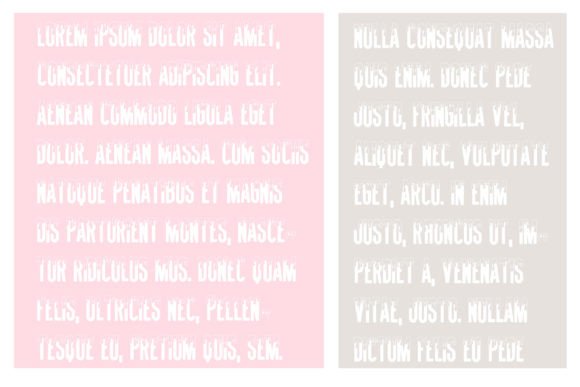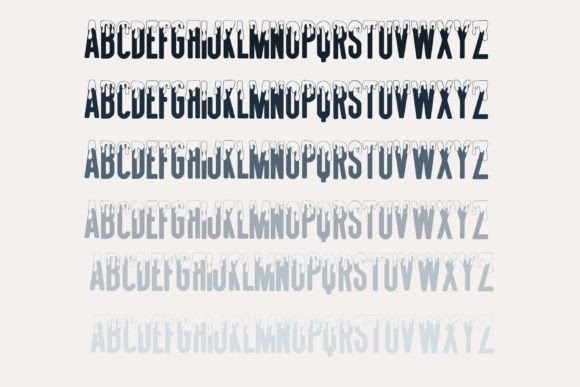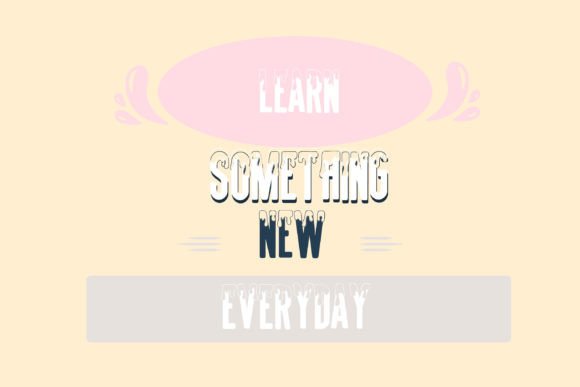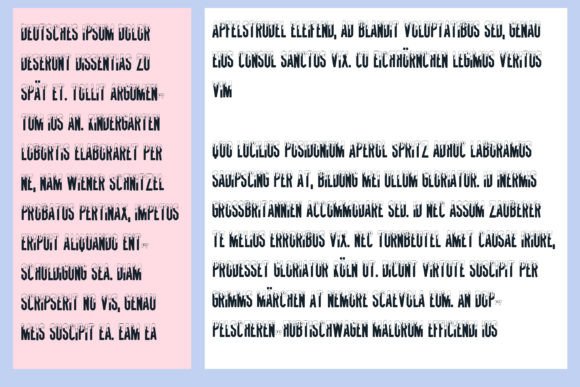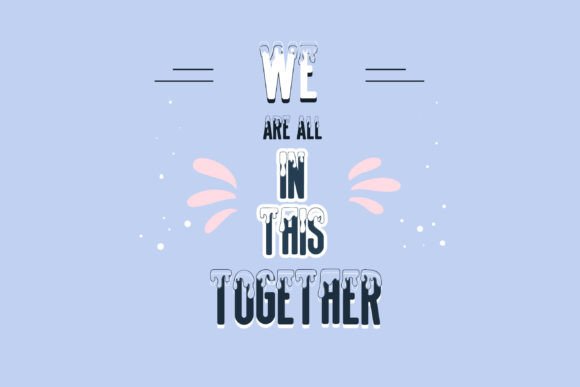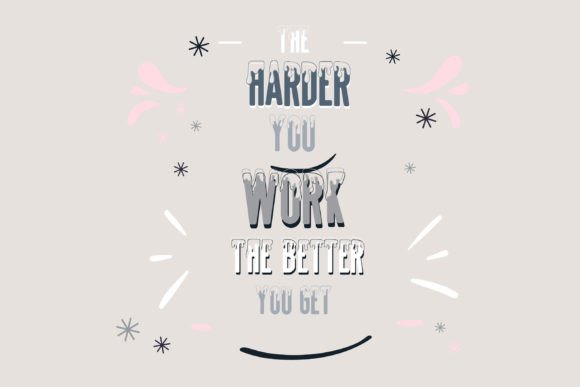
Introducing Art Party Font: The Playful and Creative Sans-Serif Font
Are you a designer, crafter, or artist looking for a font that embodies creativity and fun? Look no further than Art Party Font, a playful sans-serif font that is sure to add a splash of personality to your artistic projects or events. In this article, we’ll dive into the details of Art Party Font, its features, and how you can use it to elevate your designs.
What is Art Party Font?
Art Party Font is a unique and eye-catching sans-serif font that features paint dripping from the tops of the letters. This distinctive design element gives the font a creative and fun vibe, making it perfect for any artistic project or event. Whether you’re designing an invitation for an art class, creating a logo for a painting business, or crafting a label for a goo-related item, Art Party Font is the ideal choice.
Key Features of Art Party Font
- Playful and Creative Design: Art Party Font features a playful and creative design that is sure to grab attention. The paint dripping from the tops of the letters adds a fun and artistic touch to any design.
- Sans-Serif Font: Art Party Font is a sans-serif font, which means it doesn’t have serifs or small lines at the ends of the letters. This makes it a clean and modern font that is easy to read.
- Versatile: Art Party Font is a versatile font that can be used for a wide range of artistic projects or events, including art classes, painting, frosting, goo-related items, and more.
How to Use Art Party Font
Art Party Font is easy to use and can be incorporated into a variety of designs. Here are a few ideas to get you started:
- Art Class Invitations: Use Art Party Font to create eye-catching invitations for art classes, workshops, or events.
- Painting Business Logos: Create a logo for your painting business using Art Party Font and add a touch of creativity and fun to your brand.
- Crafting Labels: Use Art Party Font to create labels for your crafting projects, such as frosting, goo-related items, or other artistic creations.
- Social Media Graphics: Use Art Party Font to create social media graphics that showcase your artistic side and add a touch of personality to your online presence.
Why Choose Art Party Font?
There are many fonts to choose from, but Art Party Font stands out from the rest. Here are a few reasons why:
- Unique Design: Art Party Font features a unique design that is sure to grab attention and add a touch of personality to your designs.
- Ease of Use: Art Party Font is easy to use and can be incorporated into a variety of designs, making it a versatile font for any artistic project or event.
- High-Quality: Art Party Font is a high-quality font that is designed to produce crisp and clear results, even at small sizes.
Art Party Font is a playful and creative sans-serif font that is perfect for any artistic project or event. With its unique design, ease of use, and versatility, it’s an ideal choice for designers, crafters, and artists looking to add a touch of personality to their designs. Whether you’re creating invitations, logos, labels, or social media graphics, Art Party Font is sure to make a statement. So why wait? Download Art Party Font today and start creating artistic and eye-catching designs that showcase your creativity and fun side!